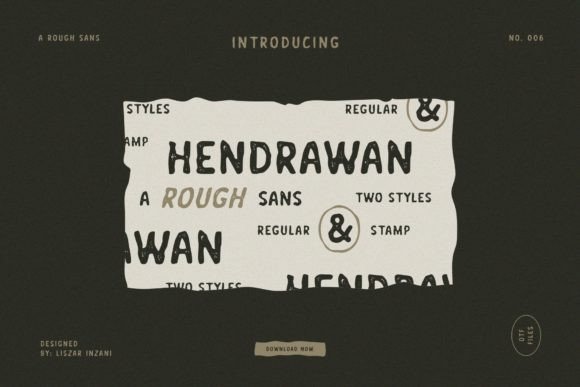
Journey through time with Hendrawan Font, where nostalgia meets sophistication. This stunning sans serif font, crafted by the talented liszarinzani, evokes an era of timeless beauty and effortless elegance. Hendrawan's rough-style edges add a touch of intrigue, while its exquisite detailing ensures a captivating presence in any design.
Unleash your creativity and immerse yourself in a world of vintage charm with Hendrawan. Let its nostalgic essence transport you to a bygone era, where every letter tells a story. From eye-catching headlines to captivating logos, Hendrawan's versatile style effortlessly elevates any project, leaving a lasting impression on your audience.
Embrace the exquisite beauty of Hendrawan and watch your designs transform into masterpieces. Its timeless appeal adds a touch of sophistication to branding, packaging, and even web design. Whether you seek a touch of retro glamour or a unique twist for your digital creations, Hendrawan is your perfect companion.
But Hendrawan is more than just a font; it's an experience. With its ability to capture the essence of nostalgia, this font evokes emotions and creates connections. Use it to craft heartfelt invitations, memorable wedding stationery, or heartfelt personal messages that resonate with your audience.
Hendrawan is your gateway to a world of vintage elegance. Its rough-style charm and exquisite detailing make it an ideal choice for designers seeking to add a touch of timeless charm to their work. So, embark on this creative journey with Hendrawan Font and create designs that speak volumes, leaving an indelible mark on the hearts and minds of your audience.